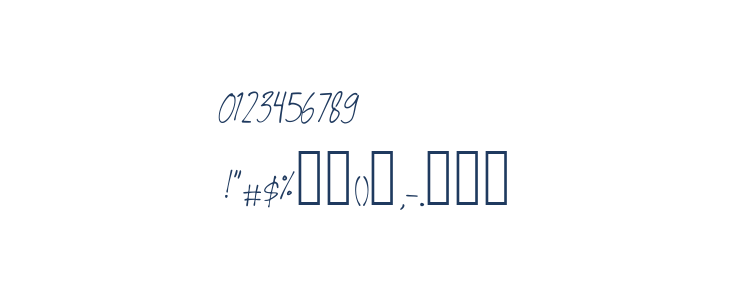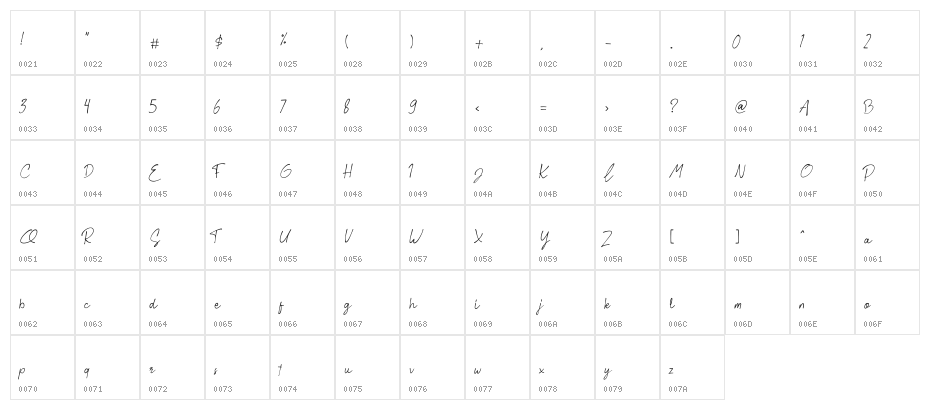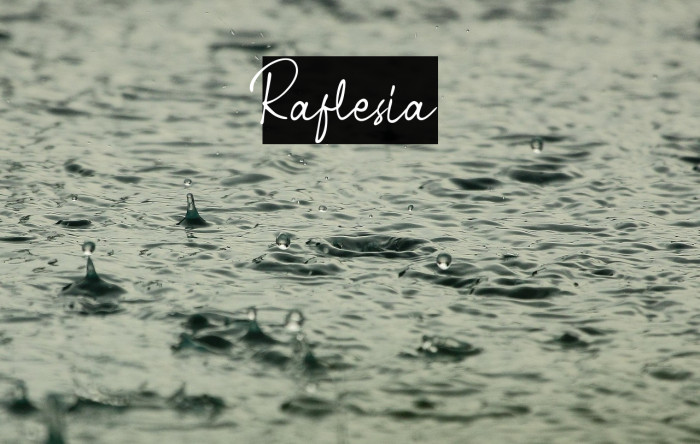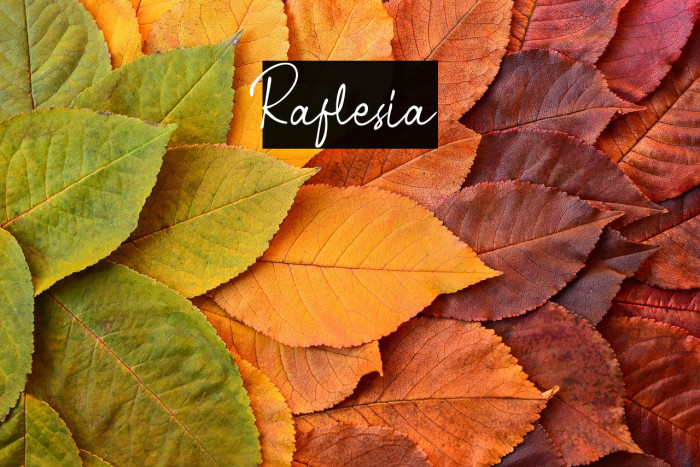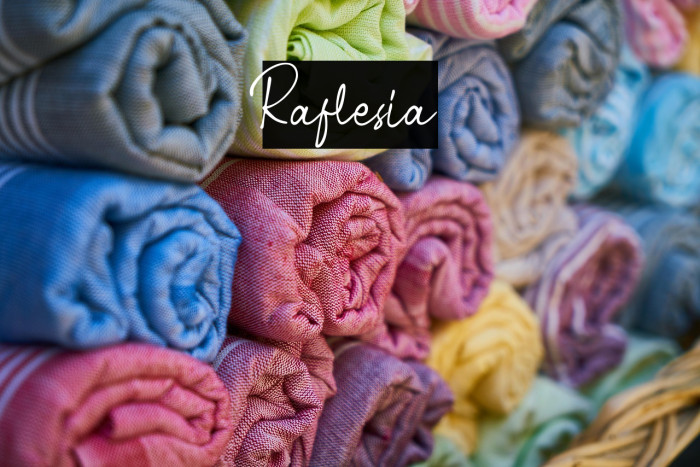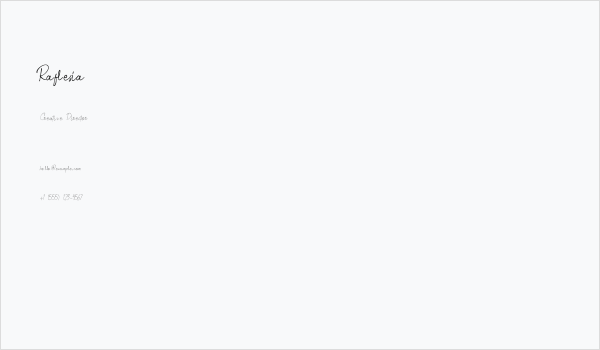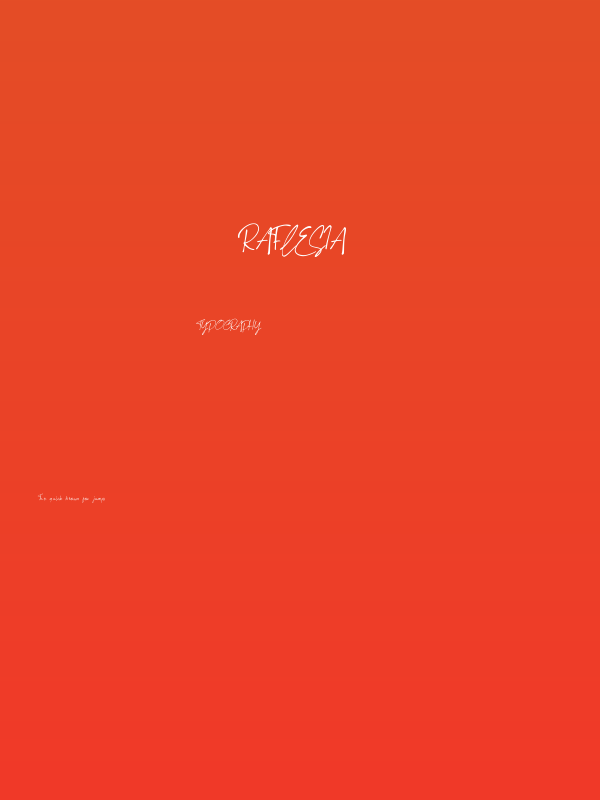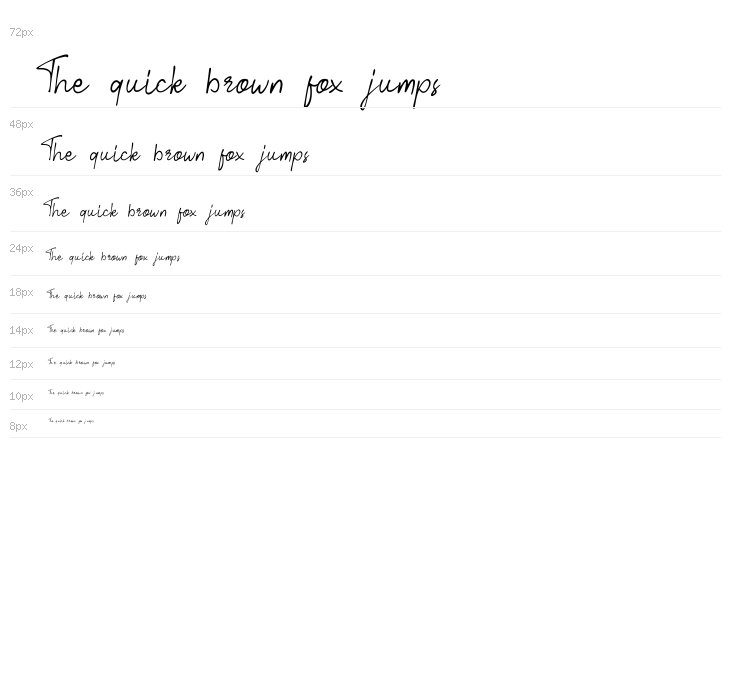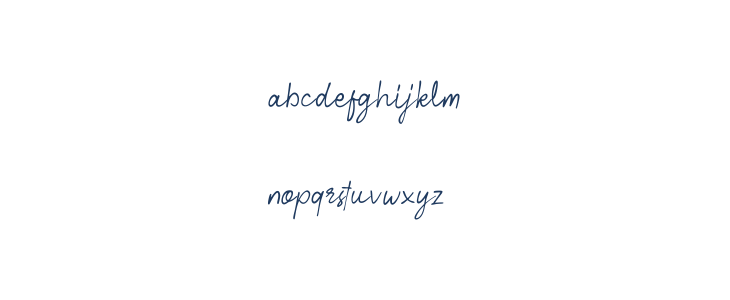
Raflesia Font
Raflesia Description
This font exudes a casual elegance with its flowing, cursive style that mimics natural handwriting. The letters are connected smoothly, creating a sense of continuity and fluidity. The uppercase characters are slightly more elaborate, with gentle curves and loops that add a touch of sophistication. The lowercase letters maintain a consistent rhythm, enhancing readability while retaining a personal touch. Numbers and special characters are designed to match the overall aesthetic, ensuring a cohesive look across all text elements. This font is perfect for projects that require a personal, yet polished appearance.
| Overall Style | Elegant, Casual |
| Use Case | Logos, Invitations, Personal Correspondence |
| Proposed Projects | Ideal for wedding invitations, personal letters, greeting cards, and branding materials that require a personal touch. |